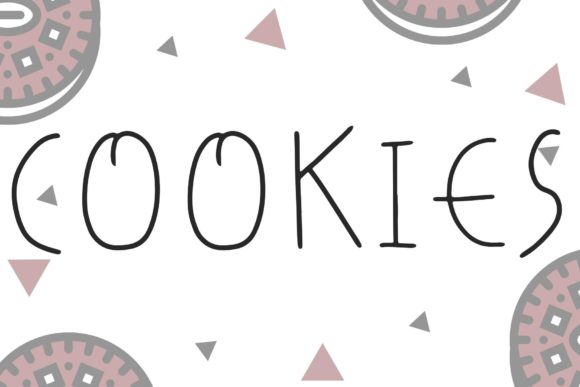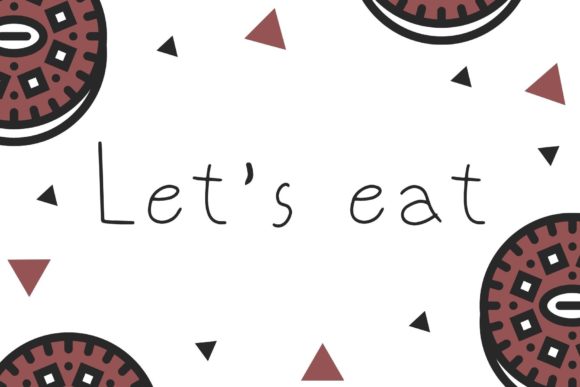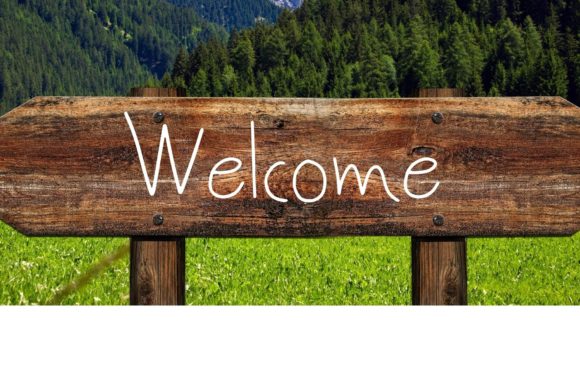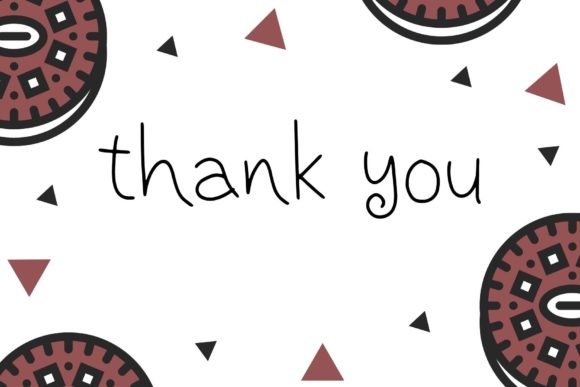
About Cookies Font
“Cookies” is introduced as a whimsical and slim handwritten font, presenting itself as a playful and versatile typeface. Crafted with a touch of whimsy and a slim profile, this font is suggested for a variety of branding projects, from logos to t-shirt printing and creative products.
The term “whimsical” immediately conveys a sense of playfulness and imaginative charm. The font is designed to bring a light-hearted and carefree quality to the visual elements it accompanies, making it suitable for projects where a playful touch is desired.
Describing “Cookies” as “slim” highlights its streamlined and slender appearance. This characteristic can add a modern and contemporary flair to the font, making it adaptable to different design styles and preferences.
The versatility of “Cookies” is emphasized by suggesting its application to various branding projects. From logos to t-shirt printing and creative products, the font is positioned as a dynamic tool that can seamlessly integrate into different branding contexts.
In summary, “Cookies” is presented as a whimsical and slim handwritten font, offering a playful and versatile option for branding projects. Its adaptability and ability to add a touch of whimsy make it a valuable asset for designers seeking a font that can inject personality into their creative endeavors.